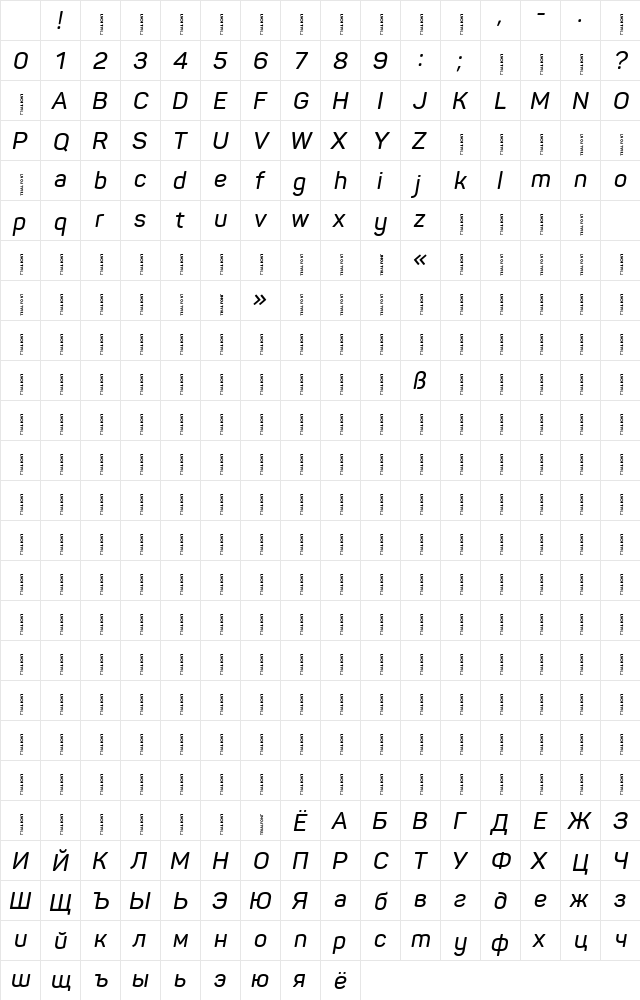
Complete Panton-Trial SemiBold Italic glyph index. Displaying only characters natively supported by Panton-Trial SemiBold Italic font.
Panton-Trial SemiBold is a composed and adaptable typeface that performs quietly and consistently across a wide range of design contexts. The slanted form adds forward momentum and visual energy. Its bold stroke weight gives it real presence on the page.
Pro Tip: Use Panton-Trial SemiBold for emphasis, pull quotes, and subheadings where its slanted energy can add rhythm to the layout.